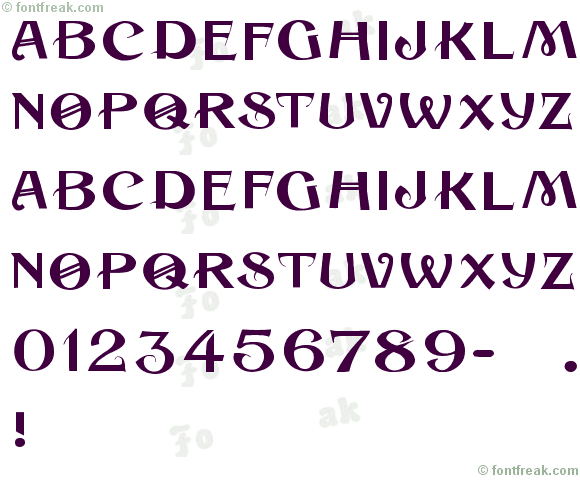
Cuban
About Cuban
Cuban by Manfred Klein is a distinctive serif font that captures the essence of traditional typefaces while offering a unique flair. This freeware font draws inspiration from the classic Miller typeface, which adds a touch of elegance and sophistication to any design project. The Cuban font features a moderate stroke weight that balances readability with style, showcasing subtle contrast in its letterforms. The spacing is thoughtfully designed, ensuring that each character is well-defined and easy to read, making it a versatile choice for various applications.
Ideal for use in wedding invitations, Cuban lends a romantic touch that complements elegant themes beautifully. Its refined characteristics also make it suitable for restaurant menus, where an air of sophistication can enhance the dining experience. Additionally, graphic designers will find Cuban to be an excellent choice for movie posters, where its unique presence can draw attention and convey a specific tone. Content creators can utilize this font for branding materials, as it adds a level of professionalism to logos and promotional graphics.
Targeting graphic designers, small business owners, and content creators, the Cuban font is a valuable addition to any design toolkit. Its heritage and stylish design elements resonate well with those looking to create captivating visual content. The versatility of this font, combined with its artistic roots, makes it a standout choice for anyone seeking to make a memorable impression. With its availability for free download, the Cuban font is not just a design asset; it is an invitation to explore creativity without the constraints of cost. Embrace the charm and elegance of Cuban, and elevate your projects with this exquisite typeface.